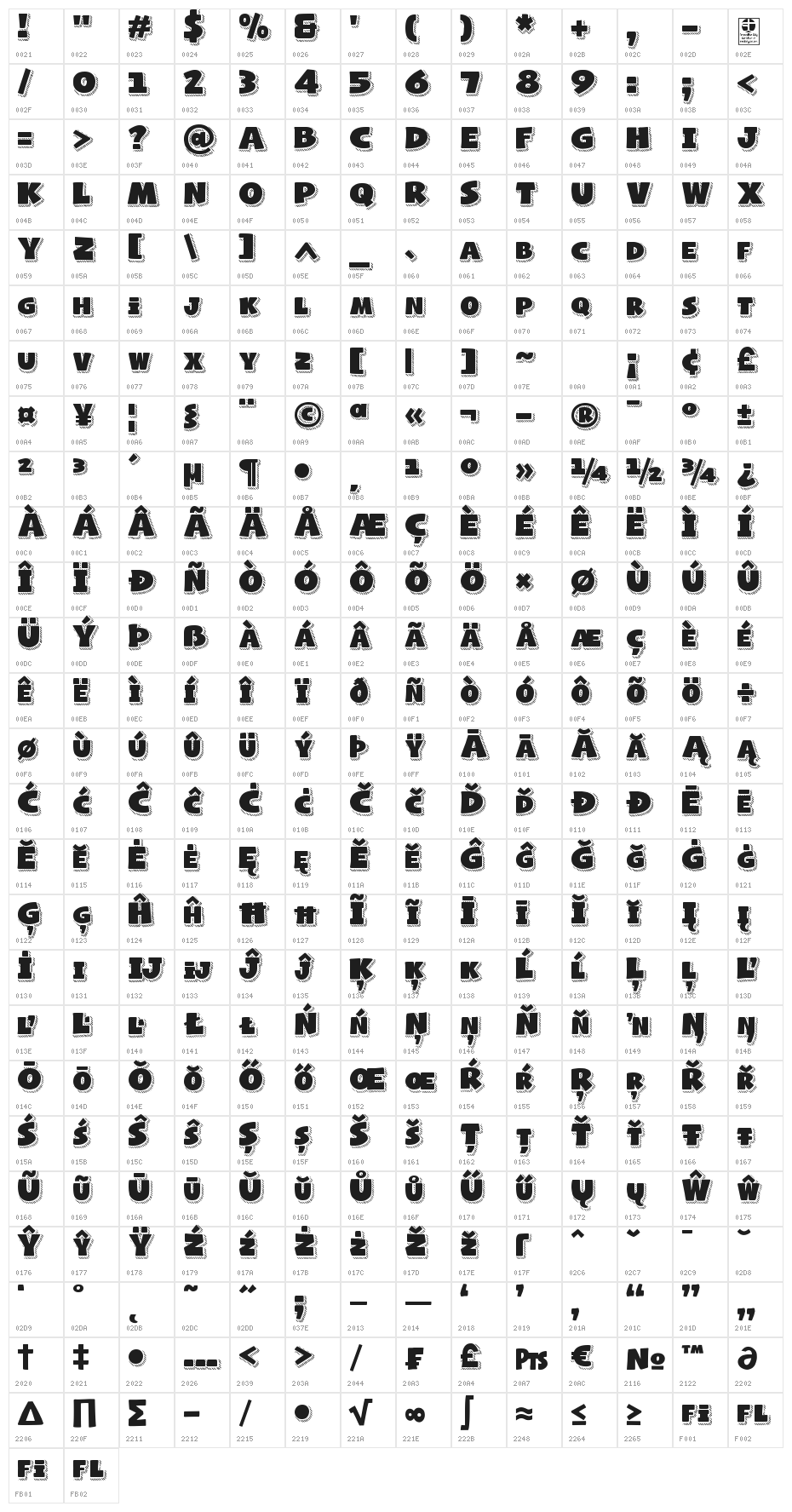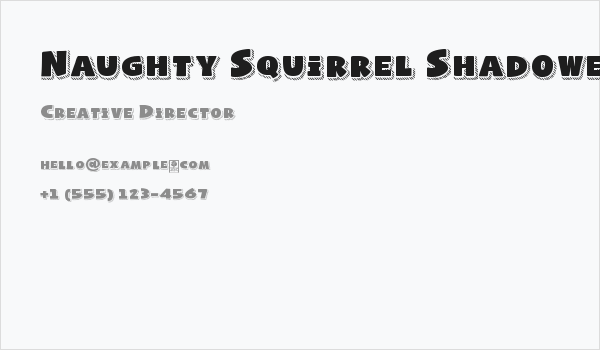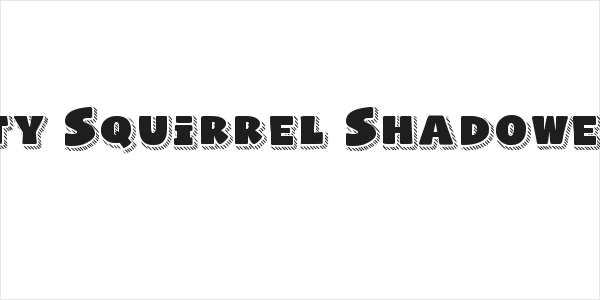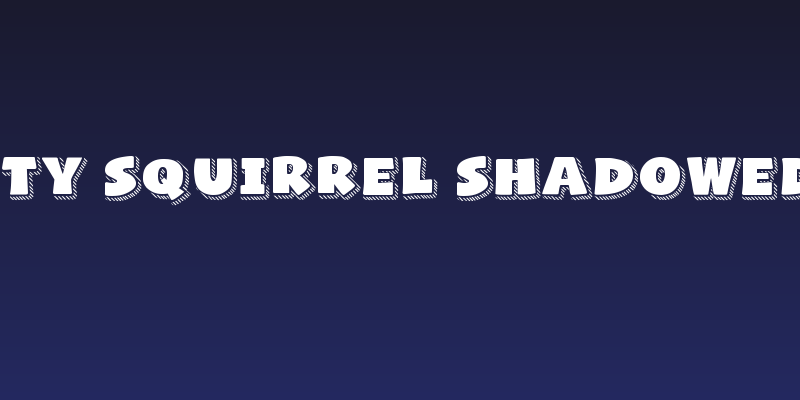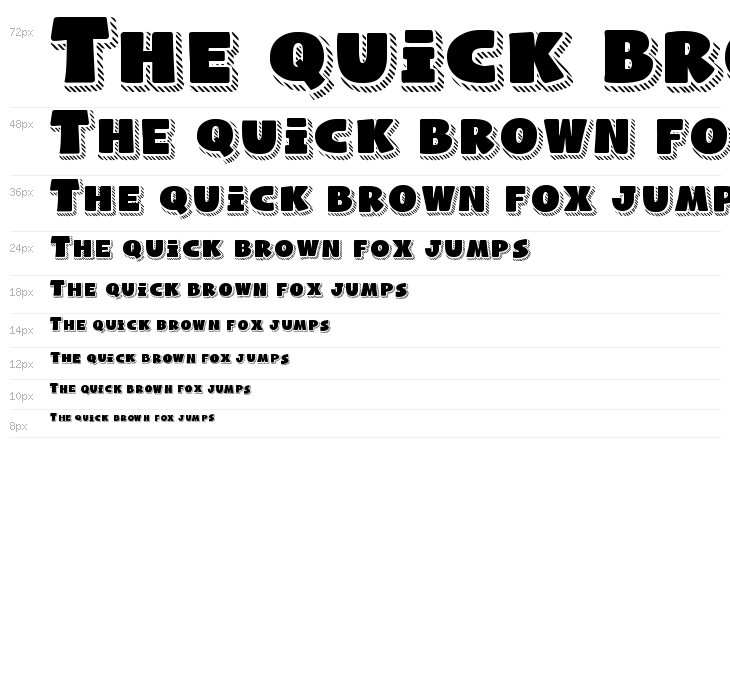
Naughty Squirrel Shadowed Demo Font
Naughty Squirrel Shadowed Demo Description
This playful and bold font features a shadowed effect that gives each character a three-dimensional appearance. The letters are thick and rounded, with a distinct shadow that adds depth and a sense of movement. The style is reminiscent of comic book lettering, making it ideal for projects that require a fun and dynamic look. The font includes a full set of uppercase and lowercase letters, numbers, and a variety of special characters, all maintaining the same shadowed style. The overall design is eye-catching and suitable for creative and informal contexts.
| Overall Style | Playful, Comic |
| Use Case | Headlines, Posters, Branding |
| Proposed Projects | Perfect for children's books, comic strips, playful branding, and eye-catching posters. |